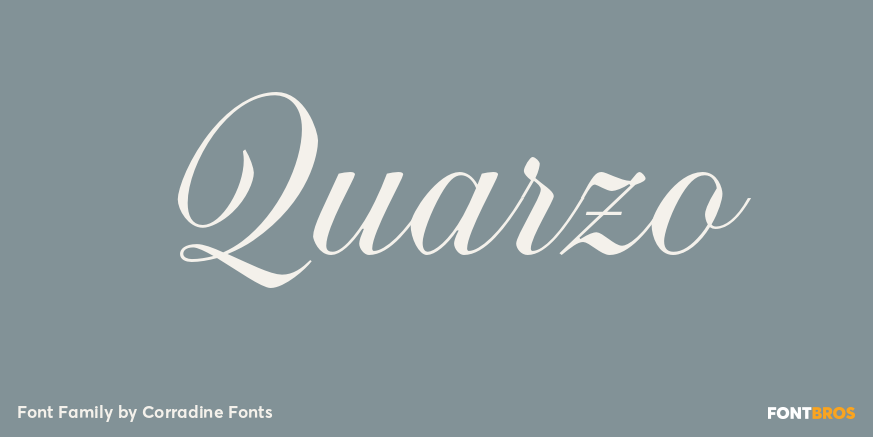
Quarzo
About Quarzo
This script font is inspired by the flexible nib to create a concatenation of refinement with character mixing the contrasted strokes with pronounced but rounded angles. This angles along with the inktraps give the font a better performance when printing.…